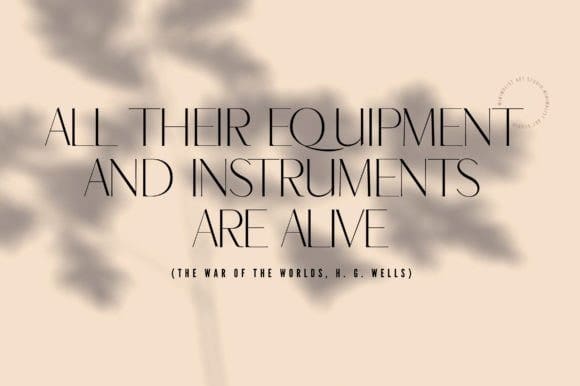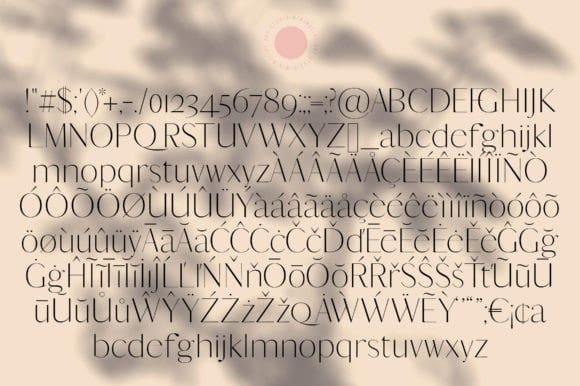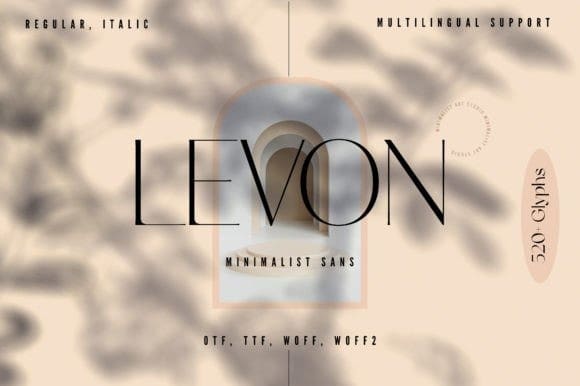
Levon Font
Levon Font is an elegant and chic sans-serif font that is perfect for modern and minimalist design projects. This font features a sleek and sophisticated look that is sure to elevate any design to a new level of sophistication. You can use this versatile font for branding, marketing, web, and print design.